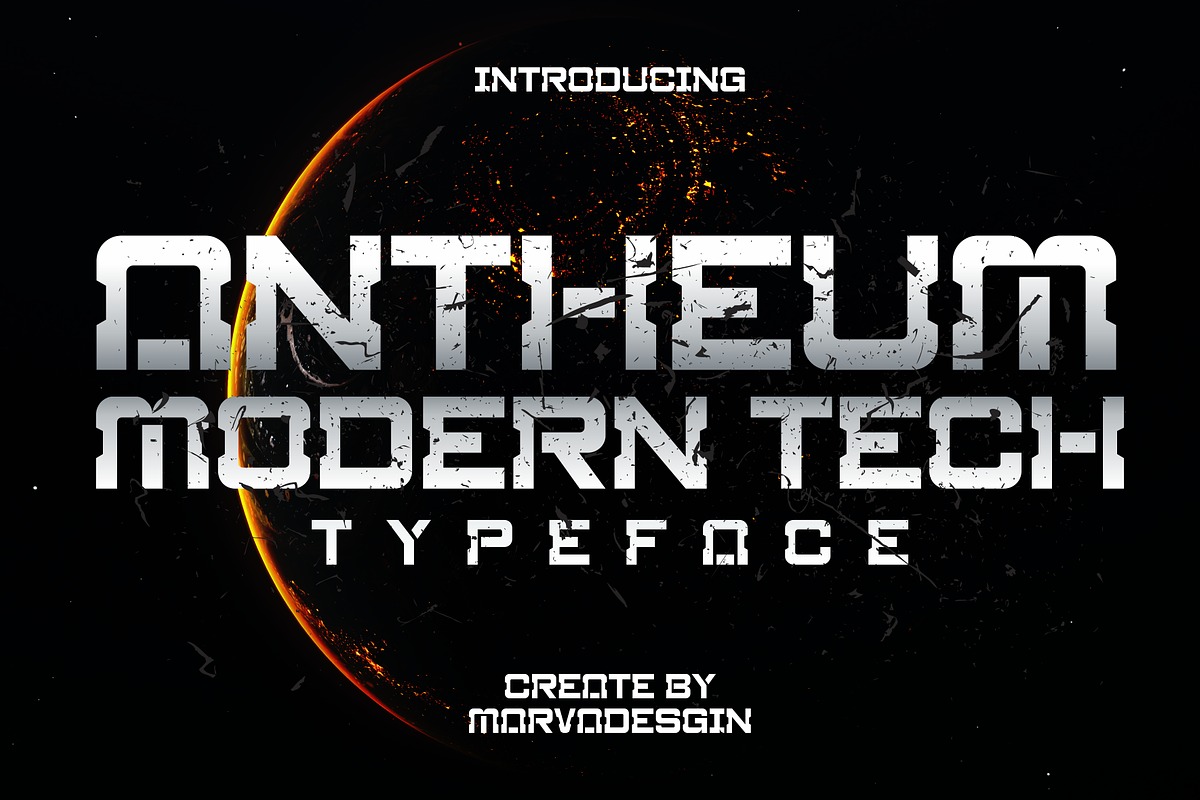
Antheum Font
Antheum Font is a premium-quality font developed to enhance your work with a polished, modern, and visually elevated look. Antheum Font – A Modern Techno Font is a bold and authentic display font. The font is suitable for any branding project like logo, Template Design, Product and many more. outstanding in a wide range of contexts.